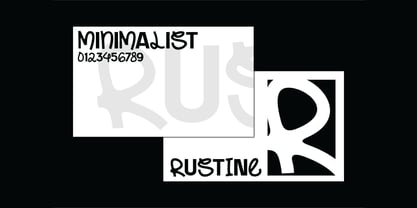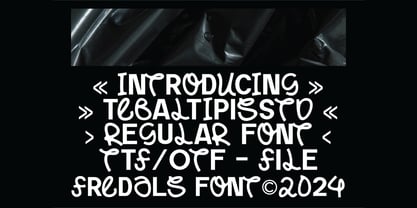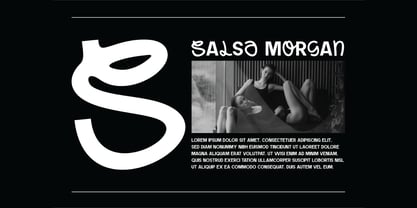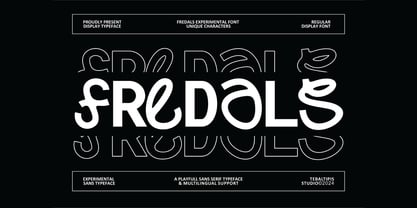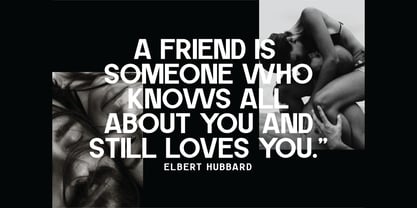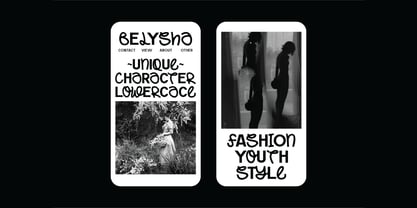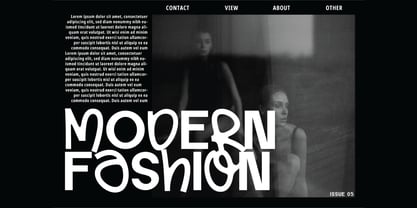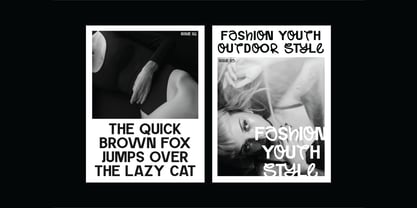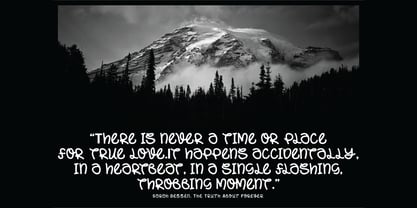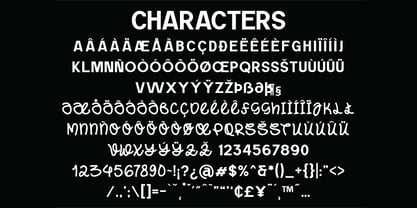
Fredals Experimental Display
by Tebaltipis Studio
The Fredals Experimental Display Font Family was designed by Dzulka Elfira and published by Tebaltipis Studio. Fredals Experimental Display contains 1 styles. More about this family
Introducing Fredals Experimental! – Casual sans that is the perfect combination of strength & play.
Fredals is an experimental and unique font with stylish curves and a modern visual design. Fredals is here to make your projects more stunning and eye-catching.
Fredals is the perfect choice for any creative endeavor! Whether it’s logos, advertisements, watermarks on photos, stationery, branding projects, magazine layouts, invitations, corporate branding, product designs, labels, business projects, or any other project that needs an elegant touch, Fredals has got you covered.
Designers: Dzulka Elfira
Foundry: Tebaltipis Studio
Fredals Experimental Display